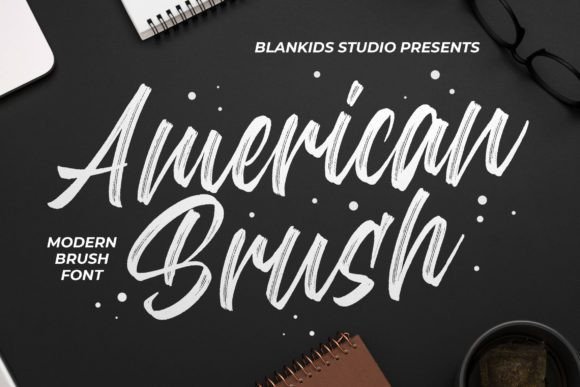
The Art of Handwritten Charm: Unleashing the Beauty of American Brush Font
There’s something magical about witnessing a design come to life, isn’t there? Maybe it’s the spark of inspiration, the stroke of a pencil, or the click of a keyboard. For me, it’s the moment when a font like American Brush Font steps in and gives a project that extra oomph. Its flowing strokes and natural texture evoke a sense of handmade charm that’s hard to resist.
Developed with designers in mind, American Brush Font is the perfect tool for adding a touch of personality to any design. Whether you’re crafting a logo, invitation, or social media post, this stylish script font brings a sense of spontaneity and playfulness that’s sure to capture attention. With its unique texture and flowing lines, American Brush Font is a valuable addition to any designer’s toolkit, allowing you to add a touch of handmade magic to your work.
Key Features of American Brush Font
- Font Family: American Brush Font is a handwritten font family designed to evoke a sense of American nostalgia and charm.
- Unique Characteristics: American Brush Font features a distinctive, hand-drawn look with subtle imperfections and texture, giving it a unique and authentic feel.
Designer Review: American Brush Font
Overall, I’d say the American Brush Font is a decent option for those looking for a font that exudes a nostalgic, handwritten feel. It’s perfect for creating a unique and personal touch in various design projects, such as invitations, greeting cards, and even digital media.
- Unique, cursive feel that sets it apart from other fonts
- Perfect for creating a sense of nostalgia and personality
- Highly customizable, allowing for adjustments to be made to suit different design needs
- Works well for digital and print media
- Limited to a specific style, making it less versatile for complex designs
- May not be suitable for formal or professional projects due to its informal, handwritten nature
- Some characters may not be fully legible or consistent in their design
In conclusion, the American Brush Font is a solid choice for designers looking for a distinctive, handwritten feel. While it has its limitations, it can be a great asset for the right projects. With some careful consideration and customization, it can add a unique touch to your designs.
Tips for Getting the Most Out of American Brush Font
Use the American Brush Font to create a vintage or rustic look in your designs. Pair it with bold colors and distressed textures to add depth and interest. Experiment with different font sizes and styles to achieve the desired effect.
The American Brush Font is ideal for:
• Wedding invitations and stationery
• Vintage-inspired posters and advertisements
• Rustic-themed websites and social media graphics
Alternatives to American Brush Font
Carolyna Pro is a modern, elegant script font designed for high-end branding and packaging. It’s ideal for creating luxurious and sophisticated designs. This font is more refined and polished compared to American Brush Font, which gives it a more upscale feel.
Comparison: Carolyna Pro has a more refined and elegant feel, while American Brush Font is more casual and playful.
Great Vibes is a beautiful, cursive font designed for headings and titles. It’s perfect for creating eye-catching and engaging designs. This font is more energetic and lively compared to American Brush Font, making it suitable for creative and artistic projects.